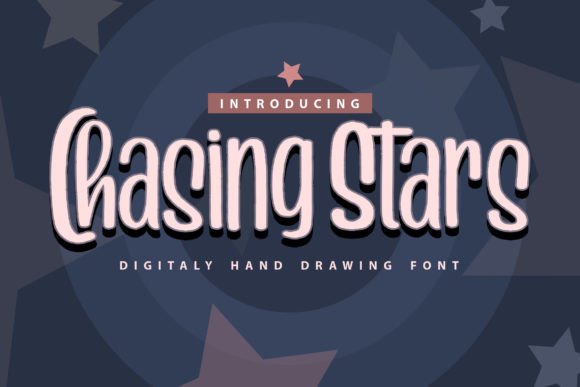
Chasing Stars Font: Add a Touch of Whimsy to Your Designs
Are you looking for a font that can add a dash of personality to your designs? Look no further than Chasing Stars Font. This adorable handwritten display font is perfect for creatives who want to infuse their projects with a touch of whimsy and quirkiness. In this article, we’ll take a closer look at Chasing Stars Font, its features, and how you can use it to elevate your designs.
What is Chasing Stars Font?
Chasing Stars Font is a handwritten display font that exudes a sense of playfulness and charm. Its whimsical and quirky design makes it perfect for a wide range of projects, from branding and advertising to packaging and social media graphics. This font is designed to brighten up your designs and add a personal touch that sets them apart from the rest.
Key Features of Chasing Stars Font
- Handwritten design: Chasing Stars Font has a beautiful, handwritten design that gives it a personal and unique feel.
- Whimsical and quirky: This font has a playful and quirky vibe that’s perfect for designs that need a touch of personality.
- Display font: Chasing Stars Font is designed as a display font, making it perfect for headlines, titles, and other prominent text elements.
- Easy to read: Despite its playful design, Chasing Stars Font is easy to read, even at smaller sizes.
How to Use Chasing Stars Font in Your Designs
Chasing Stars Font is a versatile font that can be used in a wide range of projects. Here are some ideas to get you started:
- Branding and advertising: Use Chasing Stars Font to create eye-catching logos, taglines, and ad copy that stands out from the crowd.
- Social media graphics: Add a touch of personality to your social media graphics, such as Instagram posts and Facebook headers, with Chasing Stars Font.
- Packaging design: Use Chasing Stars Font to create unique and eye-catching packaging designs that reflect your brand’s personality.
- Invitations and greeting cards: Chasing Stars Font is perfect for creating playful and whimsical invitations and greeting cards.
Tips for Using Chasing Stars Font Effectively
Here are some tips for using Chasing Stars Font effectively in your designs:
- Use it sparingly: While Chasing Stars Font is a beautiful font, it can be overwhelming if used excessively. Use it sparingly to add a touch of personality to your designs.
- Pair it with a neutral font: Pair Chasing Stars Font with a neutral font, such as Arial or Helvetica, to create visual interest and balance.
- Experiment with colors: Chasing Stars Font looks great in a variety of colors. Experiment with different colors to find the one that works best for your design.
- Pay attention to size: Make sure to adjust the size of Chasing Stars Font according to the context in which it’s being used. A larger size can be perfect for headlines, while a smaller size can be used for body copy.
Why Choose Chasing Stars Font?
There are many fonts available that offer a similar look and feel to Chasing Stars Font. So, why choose this font? Here are a few reasons:
- Unique design: Chasing Stars Font has a unique design that’s hard to find in other fonts.
- High-quality design: This font is designed with high-quality craftsmanship, ensuring that it looks great in any context.
Chasing Stars Font is a beautiful and unique font that can add a touch of whimsy and personality to your designs. Its handwritten design, whimsical vibe, and ease of use make it perfect for a wide range of projects. Whether you’re a seasoned designer or just starting out, Chasing Stars Font is a great choice for anyone looking to elevate their designs.
- Is Chasing Stars Font suitable for body copy? While Chasing Stars Font can be used for body copy, it’s recommended for use in headlines and titles where its playful design can shine.